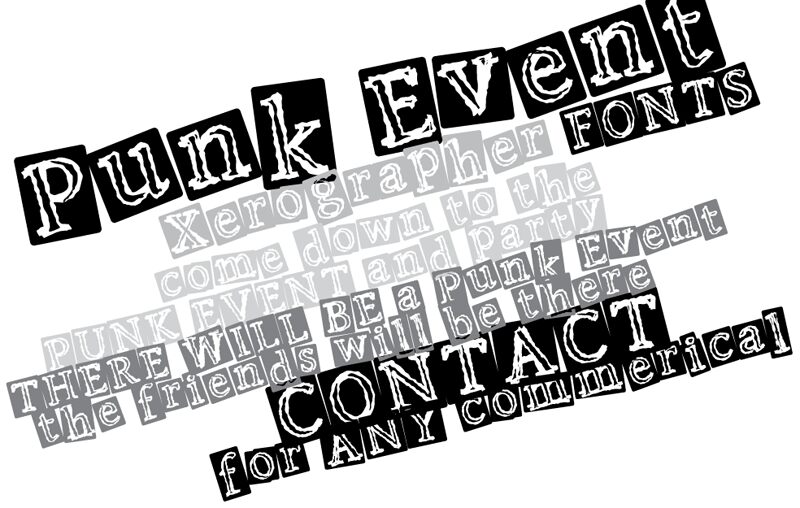
PunkEvent
"Punk Event" is a bold, distorted display font that exudes a raw, unapologetic energy. Designed by Xerographer Fonts' Max Infeld, this font's negative style and jagged edges evoke a sense of rebellion and counterculture. The letters are amplified, with each character standing out as a visual statement. This font's striking aesthetic lends itself well to a range of design applications, from concert posters and album covers to edgy branding and packaging.
Its unconventional nature makes it a powerful tool for designers seeking to create impactful, attention-grabbing visuals that challenge the status quo.